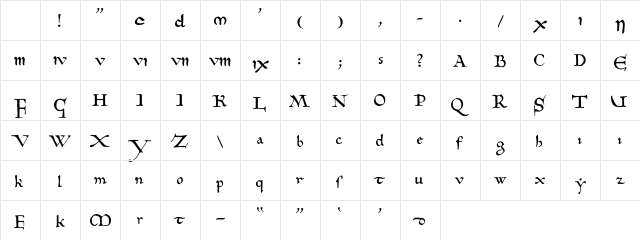
Complete 10thCenturyBookhandWF Regular glyph index. Displaying only characters natively supported by 10thCenturyBookhandWF Regular font.
10thCenturyBookhandWF flows with the natural rhythm of handwritten lettering, making it ideal for designs that call for warmth and personal expression.